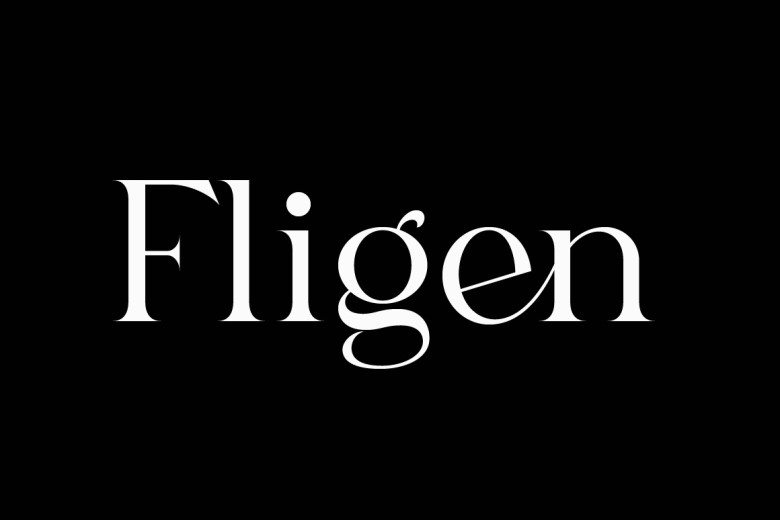
Fligen Font
Fligen Stylish Ligature Serif New Update! Fligen is a modern and elegant serif font. It’s a serif font family. This font will be accessible in the design, the block font style will be useful for logos, magazine, social media, a bunch of sentences will be matched to make it look fun and trendy. Already matched and ready to be combined for the best design.
Fligen font is for you if you need a little bit of elegance, stylish, class, chic and modernity for your design projects. Fligen was built with OpenType features and includes ligatures, alternates, numbers, punctuation, and it also supports other languages.
Fligen Serif Font